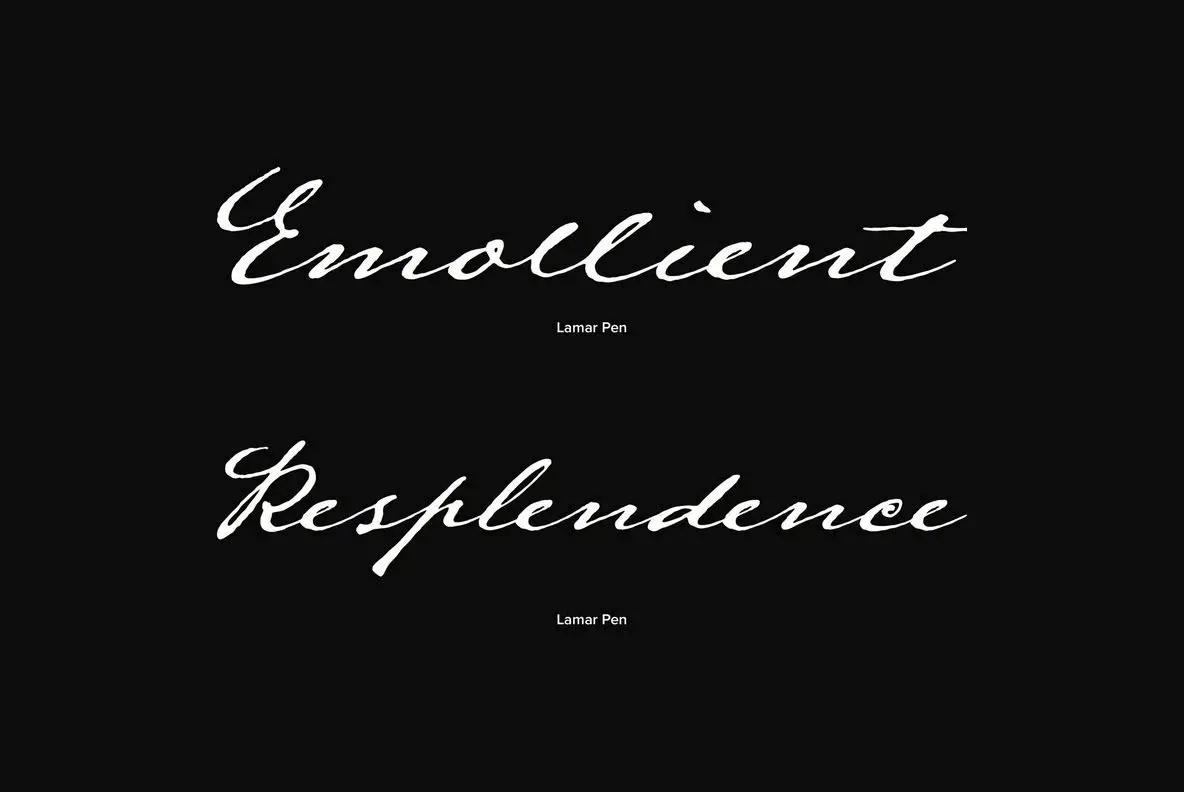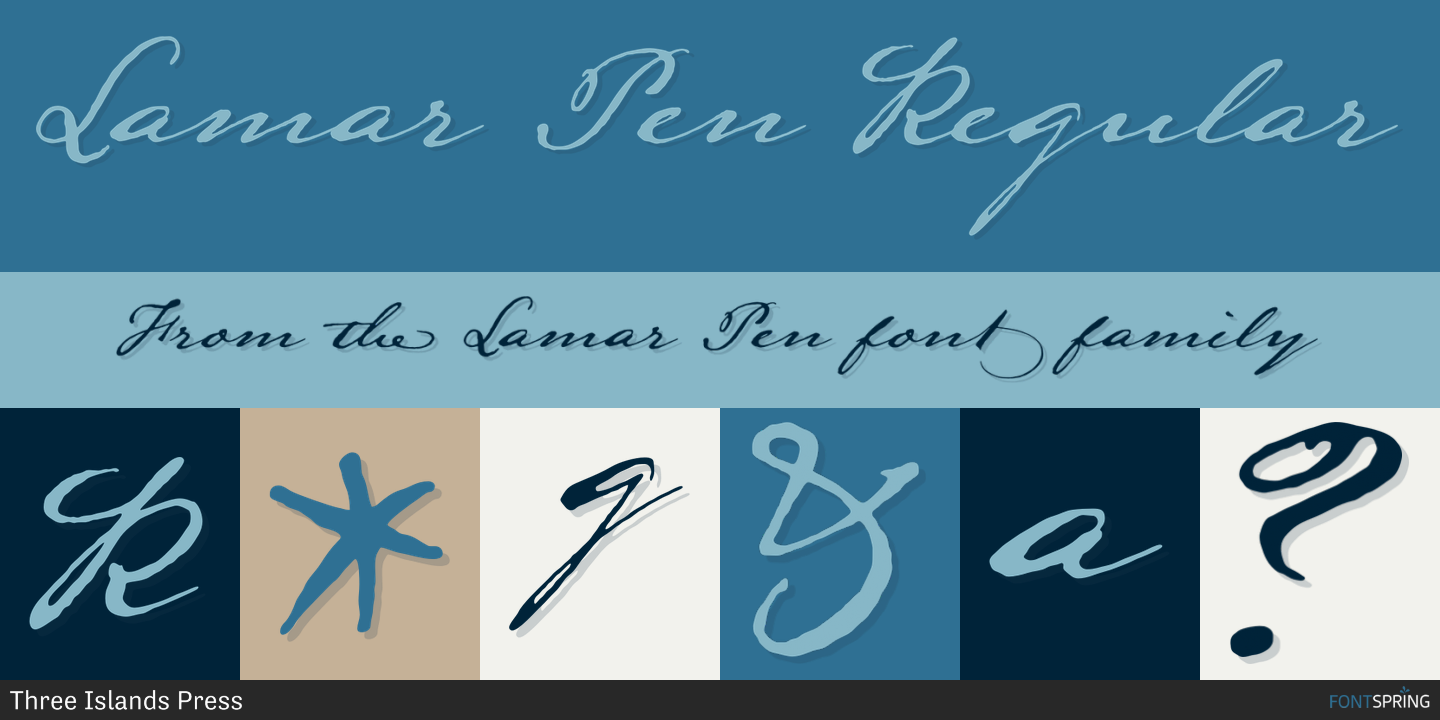
Lamar Pen Font FontPath
Lamar Pen Font Free - Comes with numerous ligatures, contextual/stylistic. Bold, clear, stylish, and authentic. Download free and premium fonts. Download 186,286 free fonts at ufonts.com Installable on pc, mac, linux, ios, and android platforms.
Lamar Pen Font Free - Comes with numerous ligatures, contextual/stylistic. Web mirabeau buonaparte lamar had an exotic name for a historic texan, but he left his mark beginning in 1836, the year of. Download 186,286 free fonts at ufonts.com Web free for personal use. This fonts are authors' property, and are either shareware, demo versions or public domain.
Lamar Pen Font Free - Download 186,286 free fonts at ufonts.com Web lamar pen™ replicates the stylish hand of mirabeau b. Download free and premium fonts. Web download lamar pen regulartruetype font. Web discover the free lamarpen font at free font download !
Lamar Pen Font Free - This fonts are authors' property, and are either shareware, demo versions or public domain. Web lamar pen™ replicates the stylish hand of mirabeau b. Bold, clear, stylish, and authentic. Lamar in his 1835 journal. Installable on pc, mac, linux, ios, and android platforms.
Lamar Pen Font Free - Web fontsplace is the best place to download lamar pen for free. This fonts are authors' property, and are either shareware, demo versions or public domain. Web discover the free lamarpen font at free font download ! Web lamar pen™ replicates the stylish hand of mirabeau b. Web download lamar pen regulartruetype font.
Lamar Pen Font Free - Installable on pc, mac, linux, ios, and android platforms. Web fontsplace is the best place to download lamar pen for free. Lamar in his 1835 journal. This fonts are authors' property, and are either shareware, demo versions or public domain. Web discover the free lamarpen font at free font download !
Lamar Pen Font Free - Download 186,286 free fonts at ufonts.com Bold, clear, stylish, and authentic. Web mirabeau buonaparte lamar had an exotic name for a historic texan, but he left his mark beginning in 1836, the year of. Lamar in his 1835 journal. Comes with numerous ligatures, contextual/stylistic.
Lamar Pen Font Free - Comes with numerous ligatures, contextual/stylistic. Web lamar pen™ replicates the stylish hand of mirabeau b. Web discover the free lamarpen font at free font download ! Web free for personal use. Web fontsplace is the best place to download lamar pen for free.
Lamar Pen Font Free - Web discover the free lamarpen font at free font download ! Web mirabeau buonaparte lamar had an exotic name for a historic texan, but he left his mark beginning in 1836, the year of. Web download lamar pen regulartruetype font. Web download lamarpen for free, view sample text, rating and more on fontsgeek.com. Download free and premium fonts.
Lamar Pen Font Free - Download 186,286 free fonts at ufonts.com Web download lamarpen for free, view sample text, rating and more on fontsgeek.com. Bold, clear, stylish, and authentic. Lamar in his 1835 journal. Download free and premium fonts.
Lamar Pen Font Free - Lamar in his 1835 journal. Download free and premium fonts. Web free for personal use. This fonts are authors' property, and are either shareware, demo versions or public domain. Web lamar pen™ replicates the stylish hand of mirabeau b.
Lamar Pen Font Free - Web free for personal use. Web lamar pen™ replicates the stylish hand of mirabeau b. This fonts are authors' property, and are either shareware, demo versions or public domain. Download free and premium fonts. Bold, clear, stylish, and authentic.
Lamar Pen Font Free - Web discover the free lamarpen font at free font download ! Download free and premium fonts. Web mirabeau buonaparte lamar had an exotic name for a historic texan, but he left his mark beginning in 1836, the year of. Web download lamar pen regulartruetype font. Web download lamarpen for free, view sample text, rating and more on fontsgeek.com.
Lamar Pen Font Free - This fonts are authors' property, and are either shareware, demo versions or public domain. Web discover the free lamarpen font at free font download ! Bold, clear, stylish, and authentic. Web fontsplace is the best place to download lamar pen for free. Comes with numerous ligatures, contextual/stylistic.
Lamar Pen Font Free - Web fontsplace is the best place to download lamar pen for free. Installable on pc, mac, linux, ios, and android platforms. Download free and premium fonts. Web discover the free lamarpen font at free font download ! Web lamar pen™ replicates the stylish hand of mirabeau b.